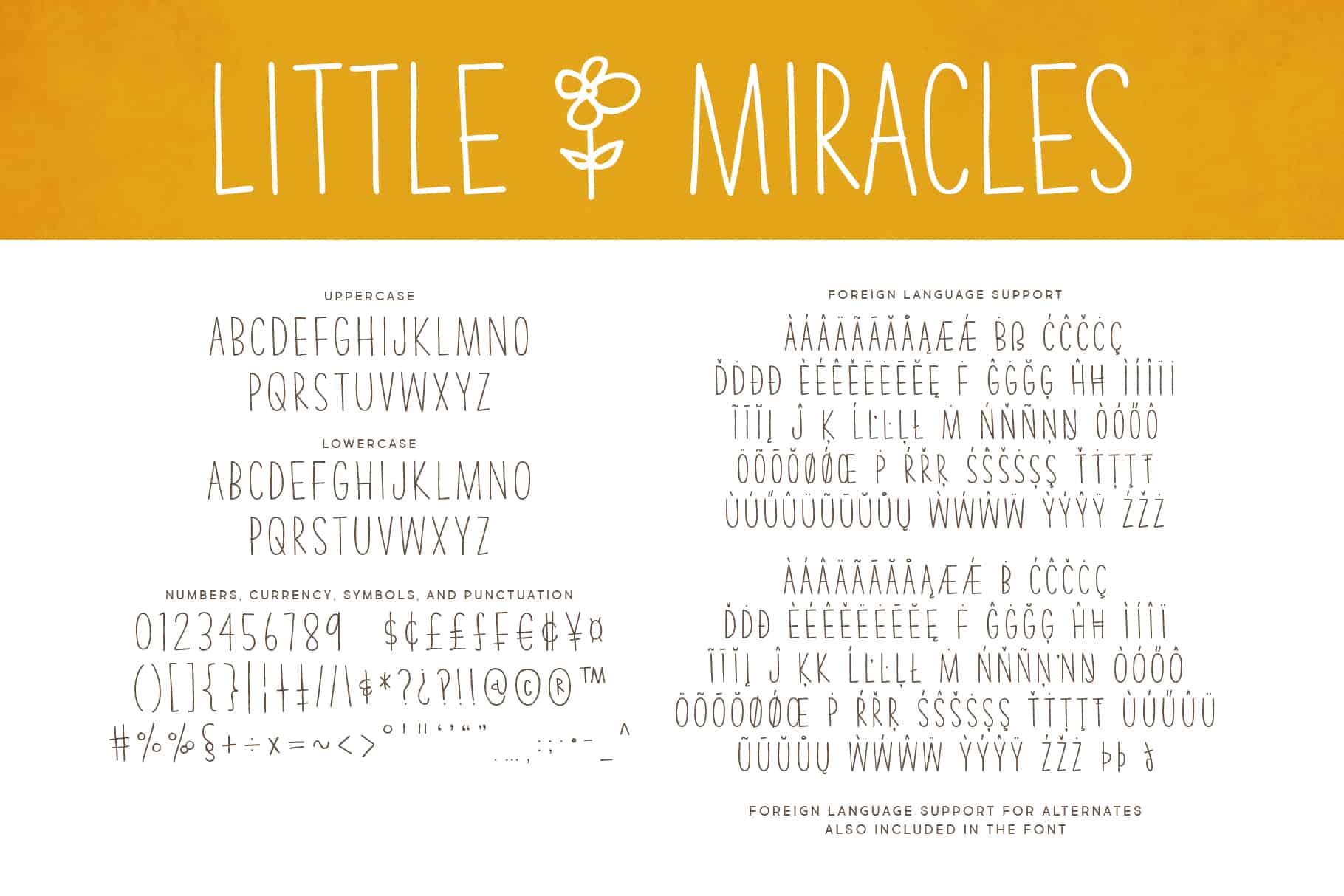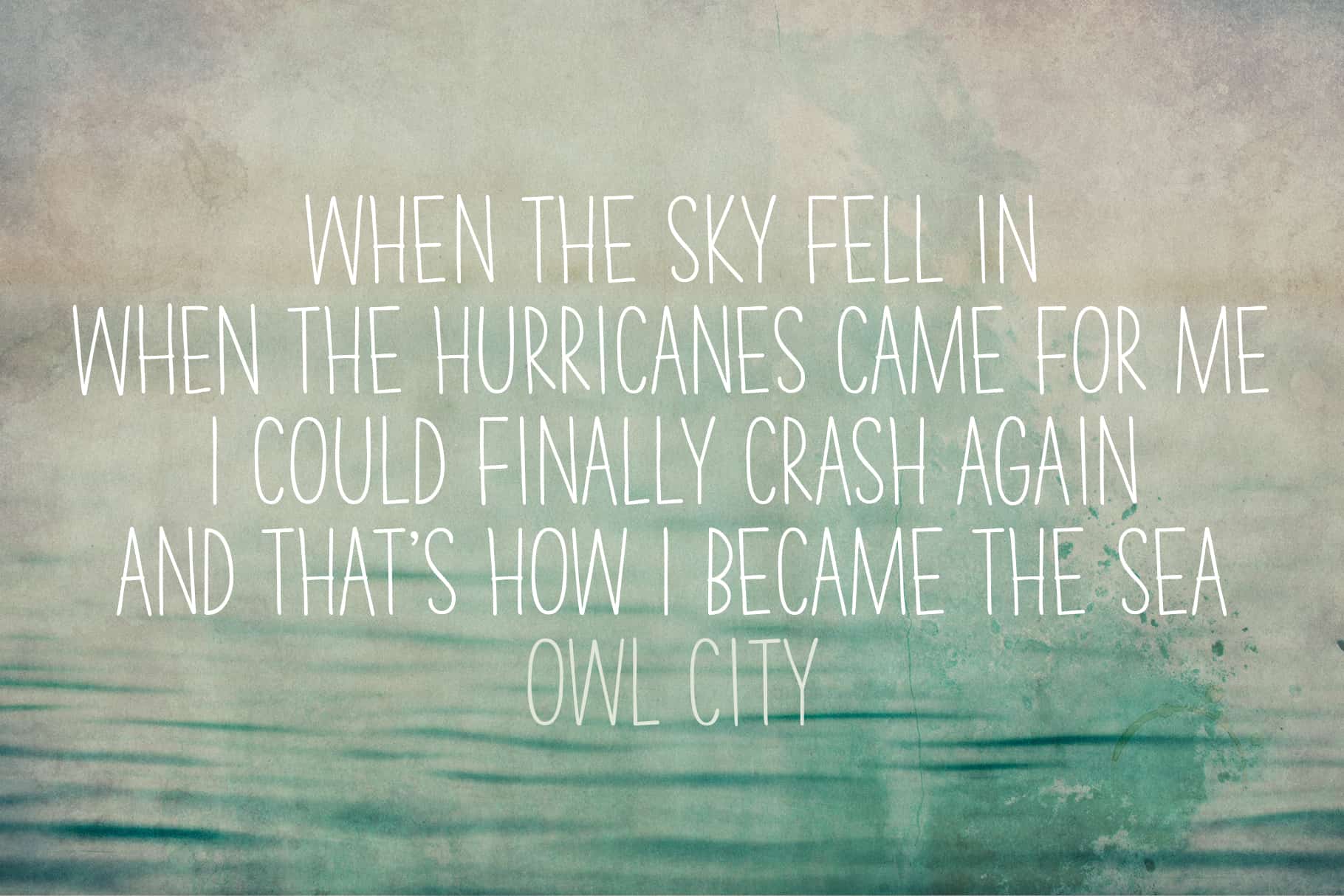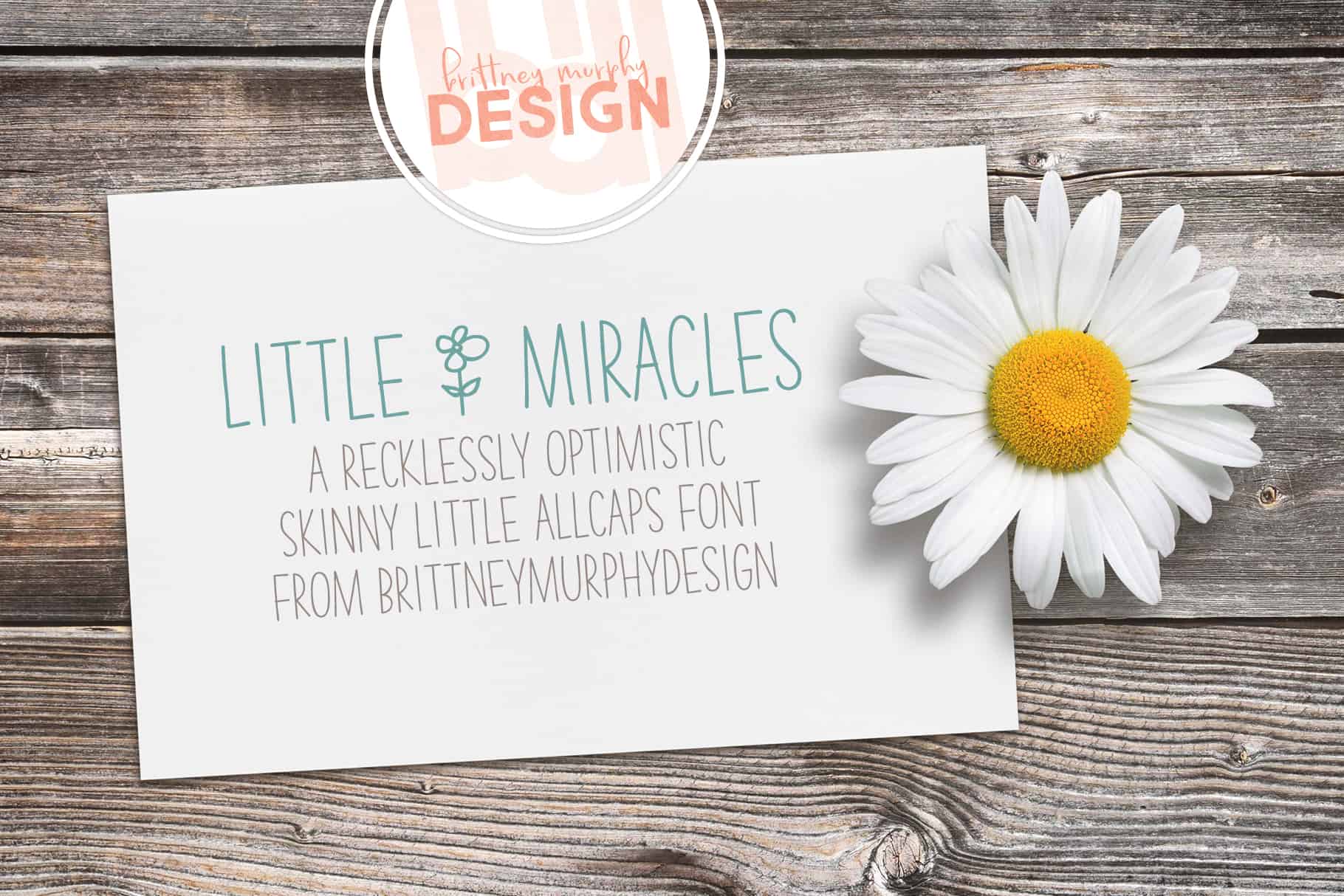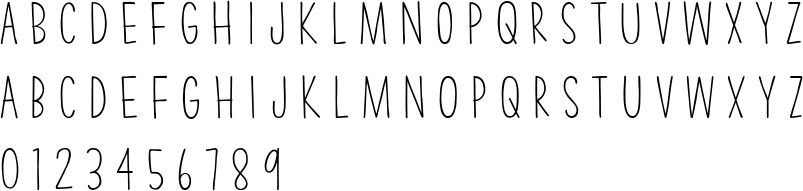
Little Miracles
Little Miracles Font
About the Little Miracles Font
The Little Miracles font is a friendly and recklessly optimistic, skinny little all caps font created in 2020 by Brittney Murphy Design. Little Miracles contains and supports most latin-based languages. It is handdrawn, and perfectly imperfect, to give it a warm homemade feel. Mix and match the upper and lowercase letters to further create a custom look. Our Little Miracles font is especially suited for crafts, as well as adding an open and inviting feeling to your logos and other graphic design projects.